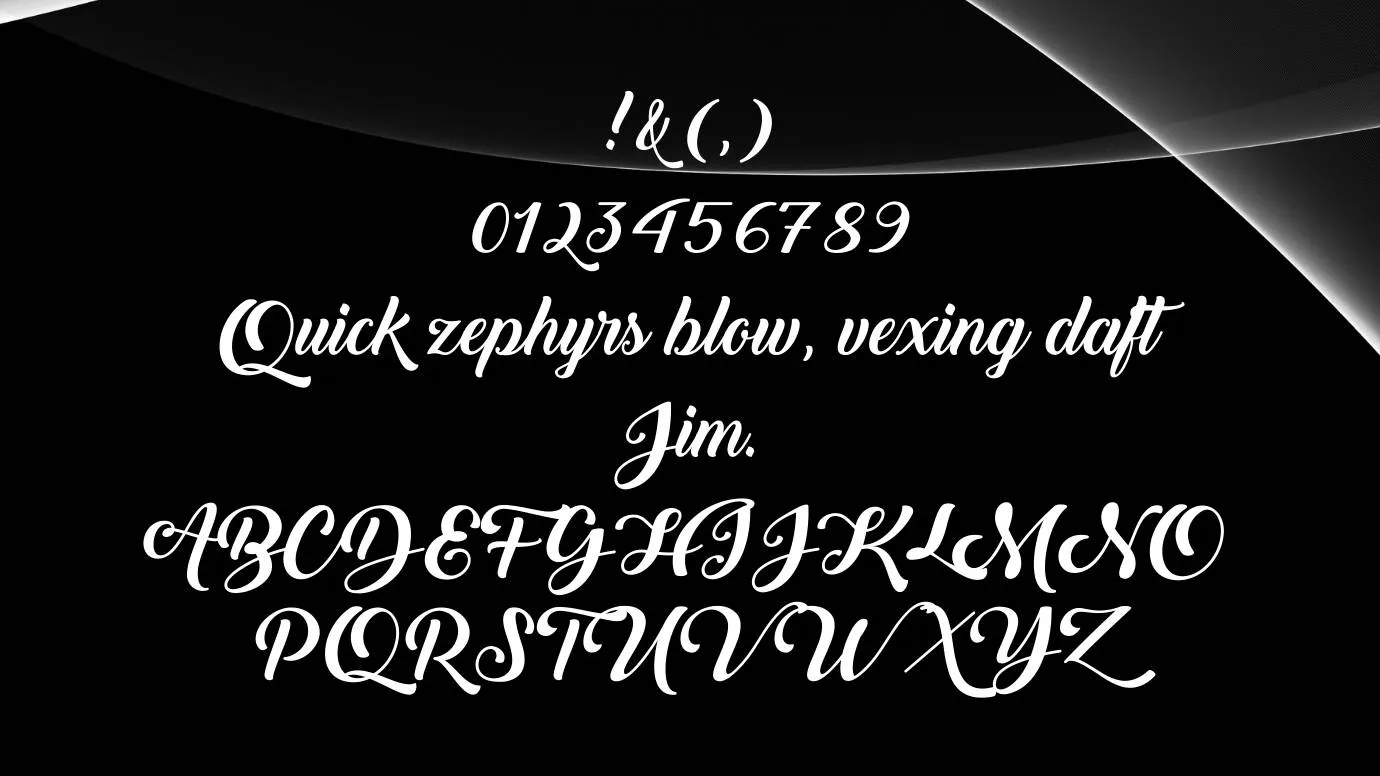
Presenting to you one of the famous calligraphy typefaces that come in a script font family named Back to Black Font. It has one regular style and elegant design. It has a very fancy and unique appearance that attracts a large audience. Many designers used this typeface in international projects and got huge popularity all over the world. It fulfills the requirements of the clients.
This incredible style geometric was designed by one famous graphic designer Misti Hammer. She designed this typeface for foundry Misti’s Fonts in 2016. It was designed in a very unique manner and stylish designs. It comes in capital letters, small letters, punctuations, numbers, symbols, digits, and special characters.
You can pair this Back To Black Font with alivia script font for amazing combinations. It can be perfectly paired with Bebas Neue Font to make one of the best combinations. There are alternative fonts that have the same style and properties that can be used instead of it like Gloucester Font.
View of Back to Black Font
Here is a view of this calligraphy Back to Black Font that has amazing style and elegant texture. You can take a look at a given picture and use this typeface in your project.
If we talk about the usage of this font then you have to know this typography has been used in many international projects. It has been used in different printing projects and display projects. It has been used in any kind of screen project.
| Name | Back to Black Font |
| Designer | Misti Hammer |
What is the Back To Black Font?
It is a clean calligraphy typeface that comes in a script font family. It has special characters and glyphs that make it attractive and eye-catchy.
Who designed the Back To Black Font?
This incredible style geometric was designed by one of the famous graphic designers Misti Hammer.